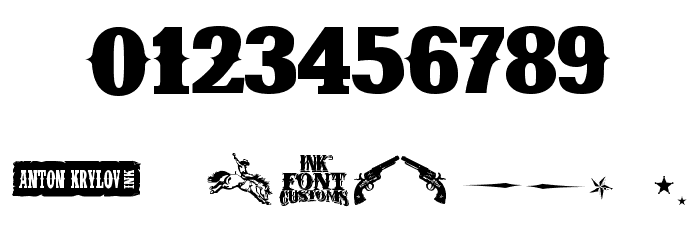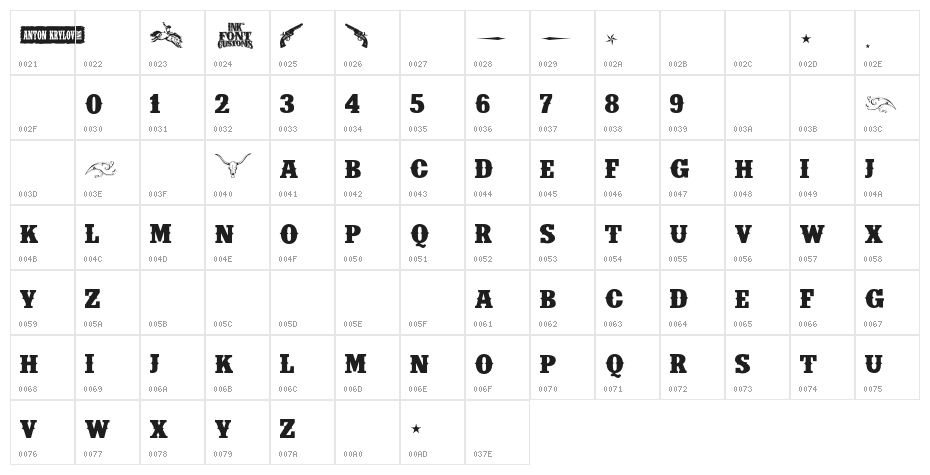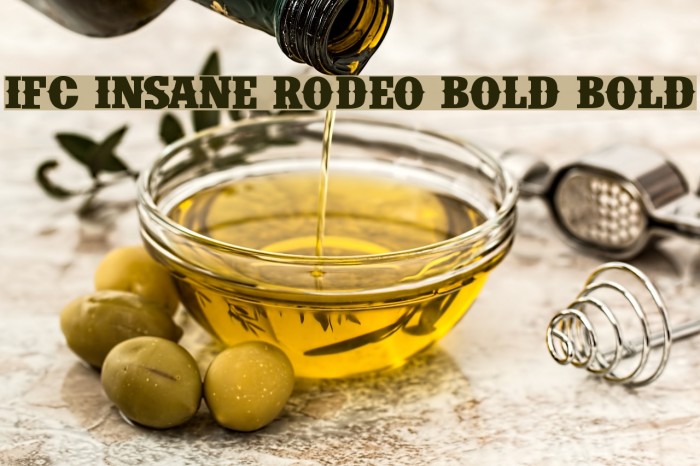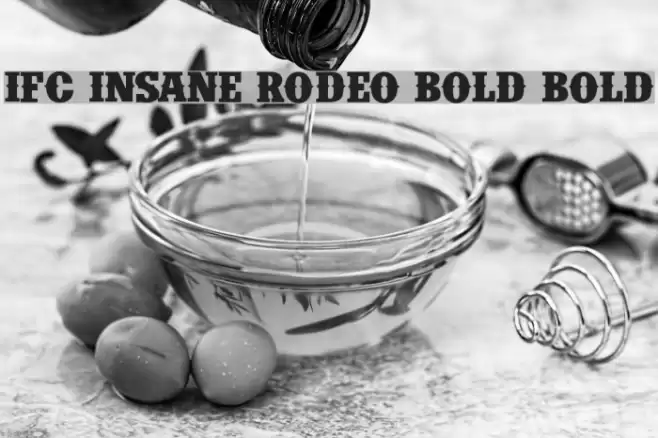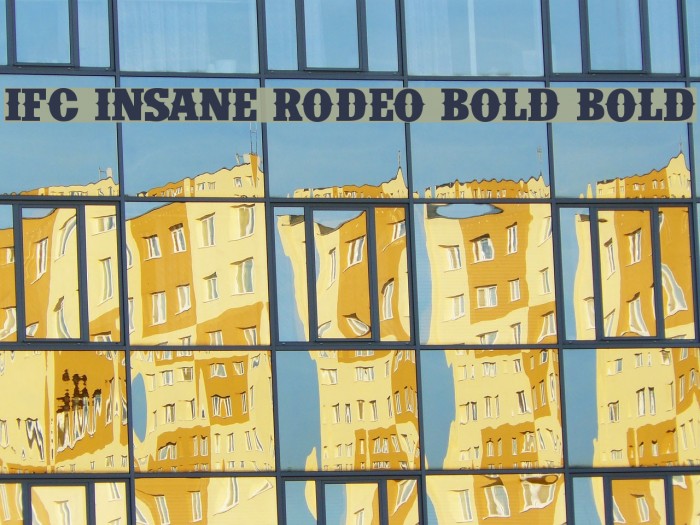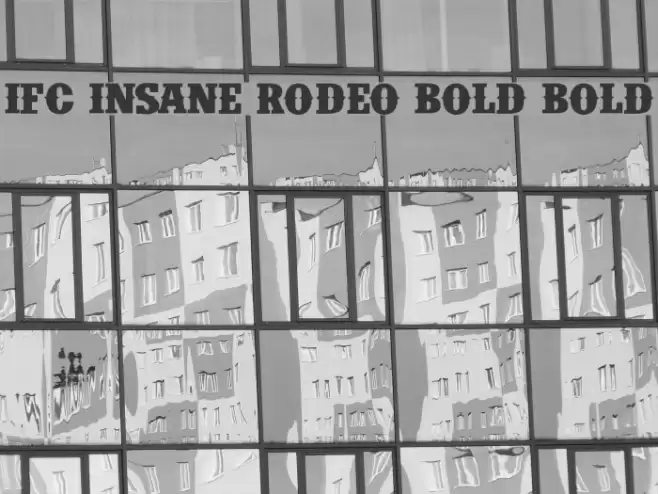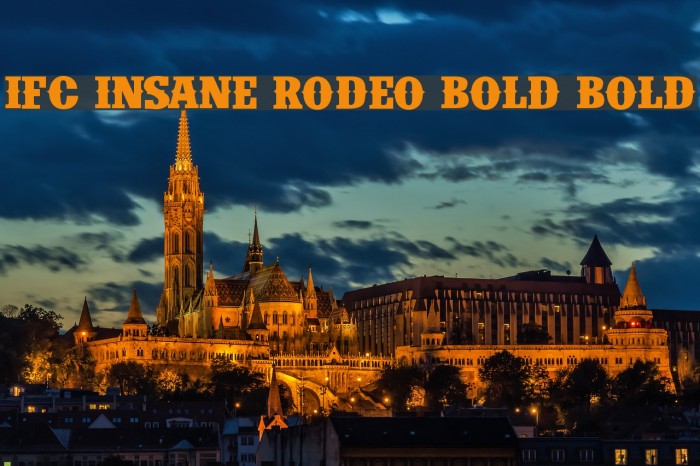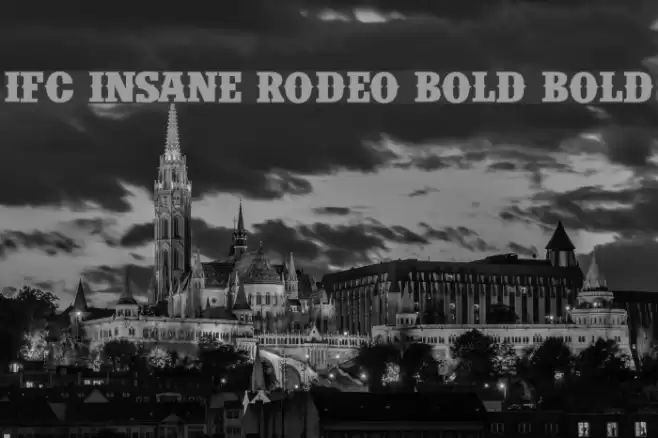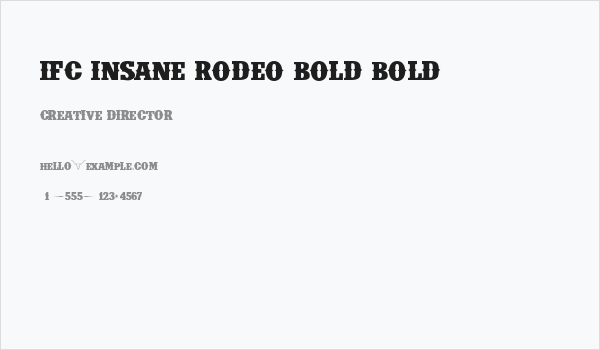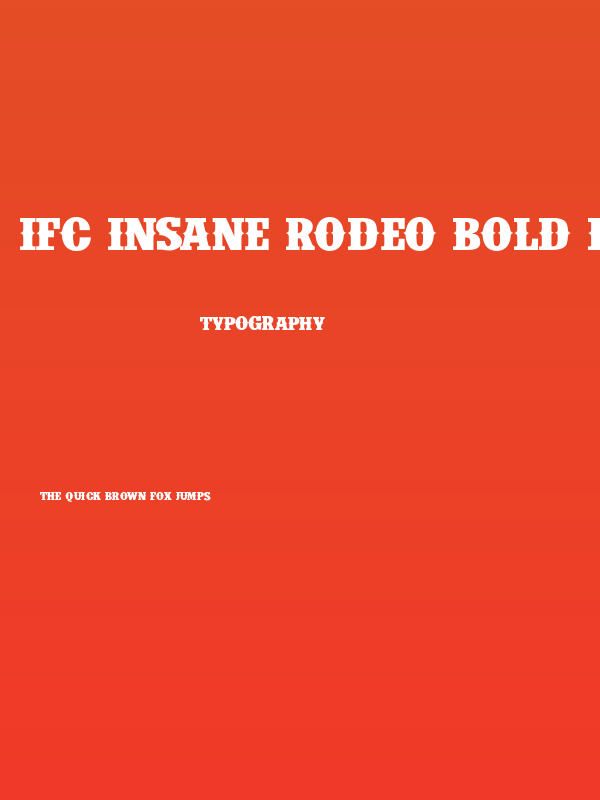
IFC INSANE RODEO BOLD Bold Font
IFC INSANE RODEO BOLD Bold Description
This bold and striking font features a strong, impactful presence with thick, heavy strokes and a distinctive Western flair. The characters are designed with a slab serif style, giving them a robust and sturdy appearance. The uppercase letters are particularly prominent, with wide, blocky shapes that command attention. The numbers are equally bold, maintaining the same weight and style as the letters. Special characters are included, adding versatility to the font. The overall design is reminiscent of classic Western typography, making it ideal for projects that require a rugged, adventurous aesthetic.
| Proposed Projects | Ideal for posters, branding, logos, and any design needing a bold, Western-inspired look. |